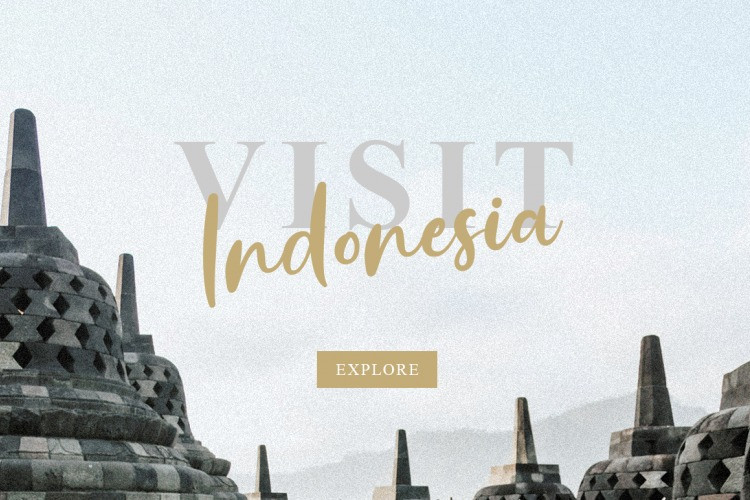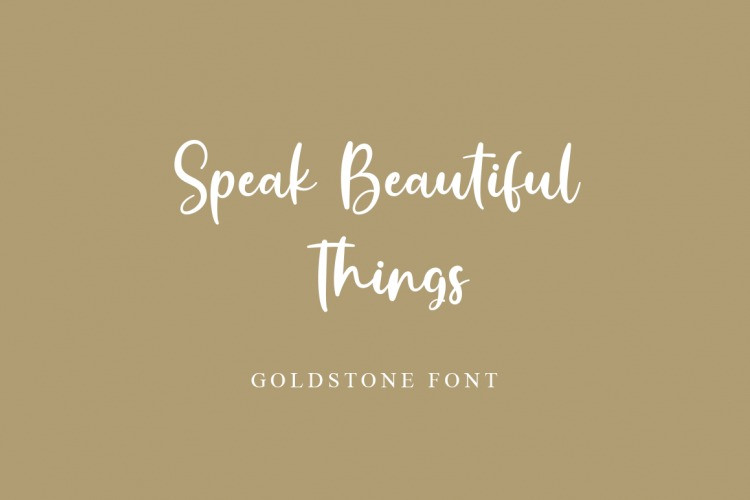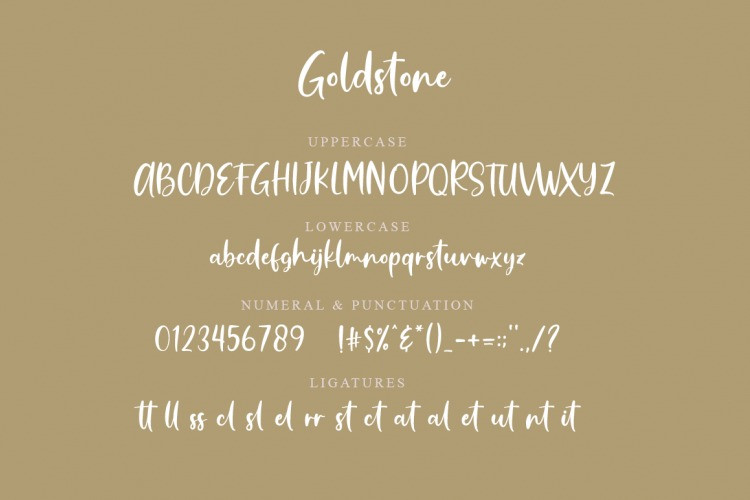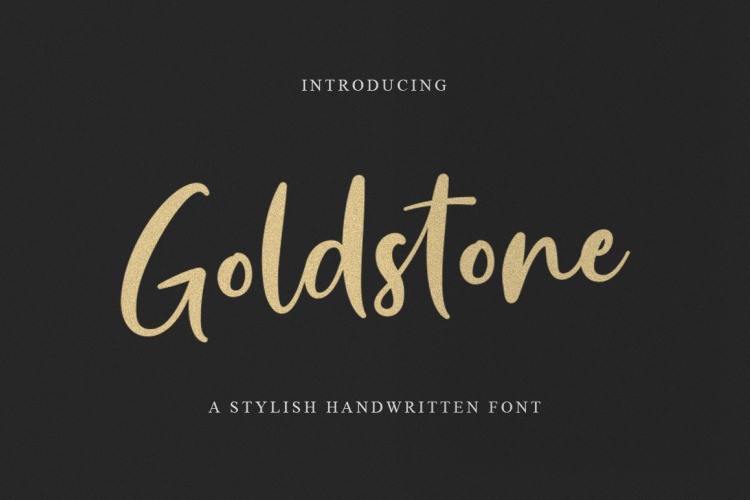
Goldstone Script Font
Hello world..!! Introducing Goldstone Font. This is a modern Calligraphy font with magical pressure. An Elegant signature with a beautiful alternate that you can easily combine. Goldstone Script is a stylish handwritten font with unique style. Goldstone is perfectly suited to signature, stationery, logo, typography quotes, magazine or book cover, clothing, branding, packaging design and more.